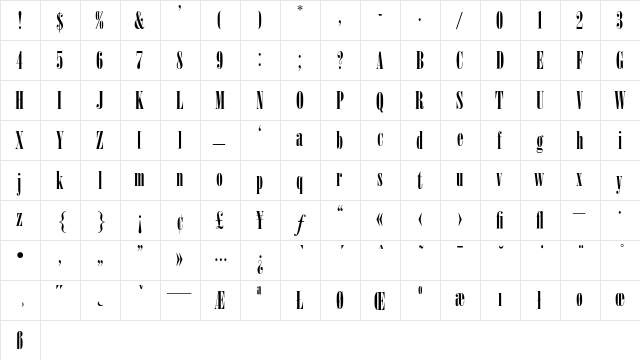
Onyx Regular
Design Context for Onyx Typeface
Onyx offers clean, dependable letterforms without strong stylistic allegiance, making it a practical choice for designers who need flexibility.